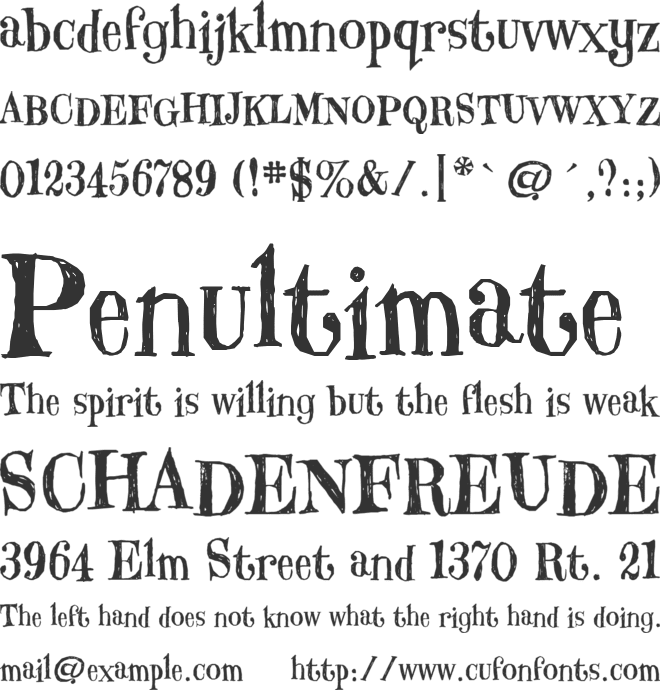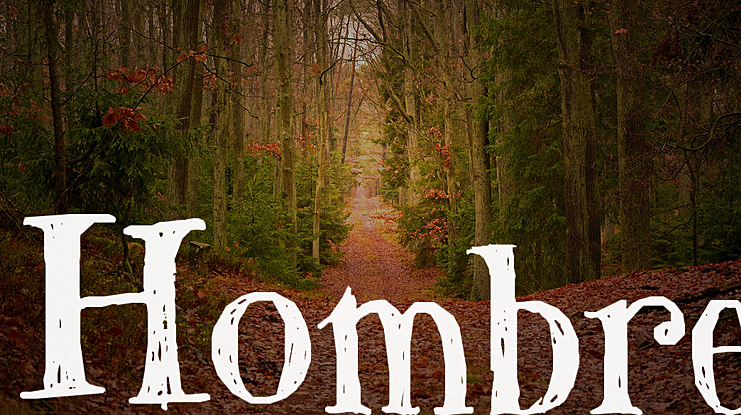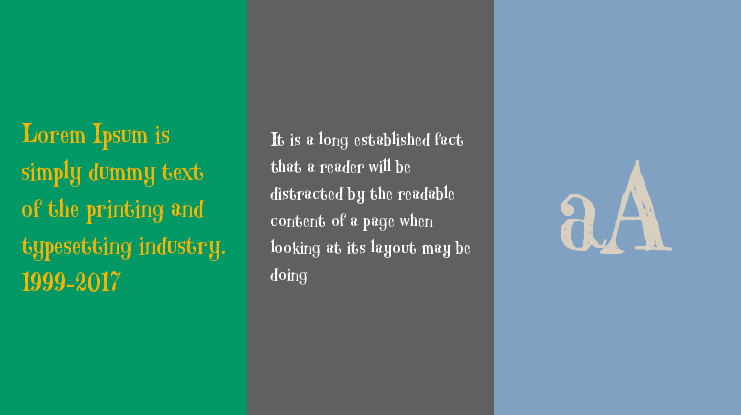
Thomas Oldfield, Monotype Design Studio
The time-ravaged features, and haphazard baseline of the Hombre™ typeface gives it an ornery attitude. Drawn by Thomas Oldfield and loosely based on popular typefaces of the 19th century, Hombre is not, however, your typical western design with chunky slab serifs or heavy drop-shadows. Don’t typecast this font. The Hombre family is equally at home in projects that call for a versatile rough-and-tumble design, as it is for those that require an authentic old west flavor.
A guaranteed attention-getter, the Hombre family is perfect for ads, banners, headlines and subheads – in both hard copy and digital environments. Hombre melds a John Wayne swagger with an endearing charm. Looking for something rugged and a little quirky? The Hombre family may be just what you need.
Add to this, a large Western and Eastern European language character set that also includes Cyrillic and Greek, and you can bring the American old west to a herd of projects – both on screen and it print.